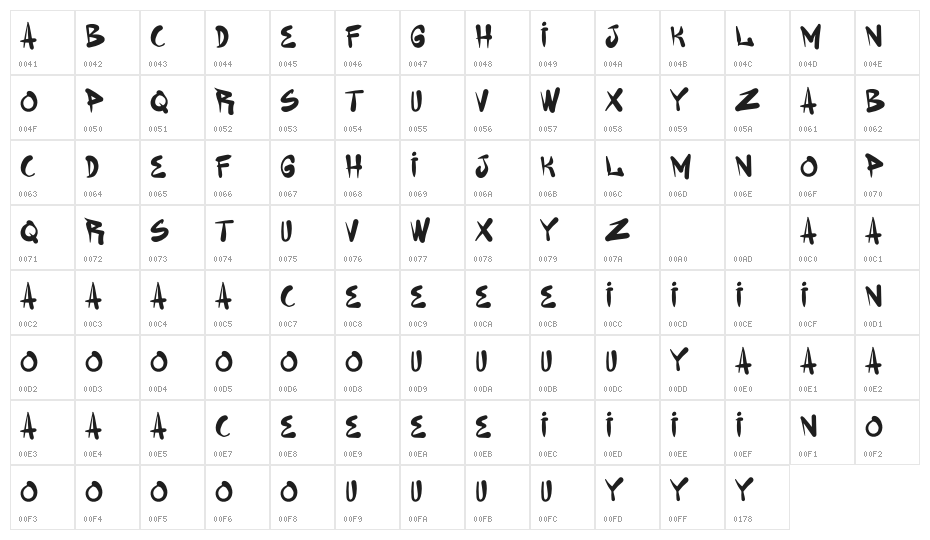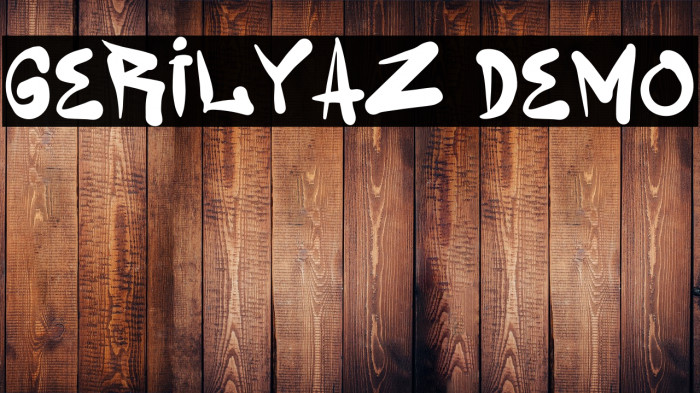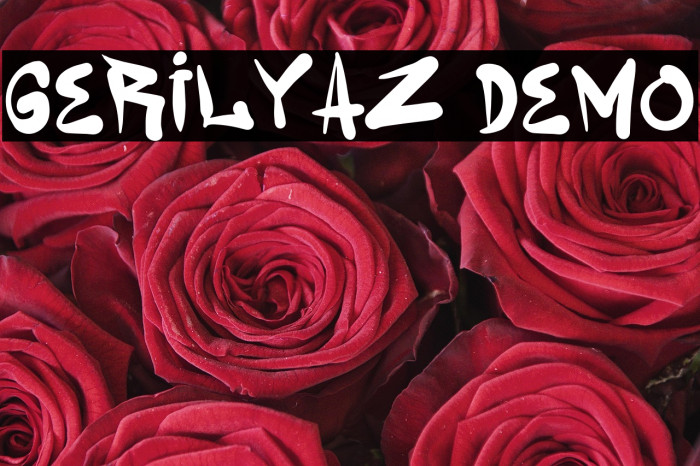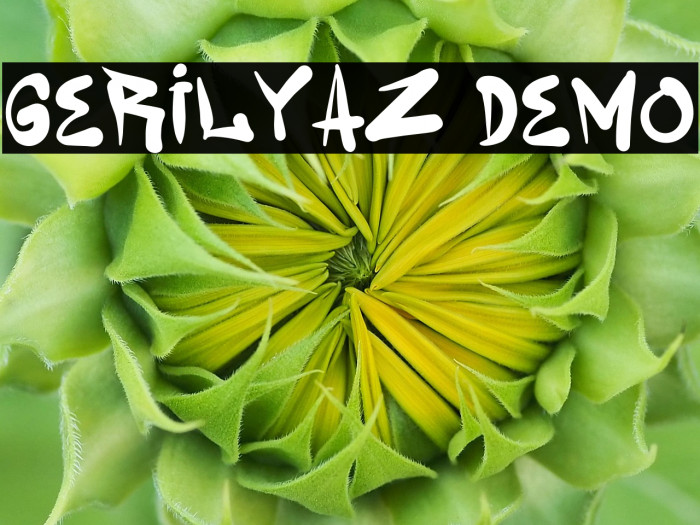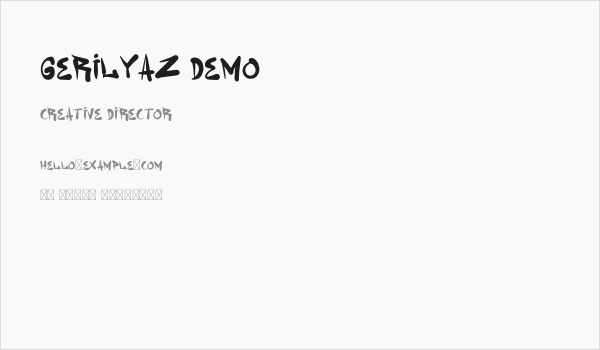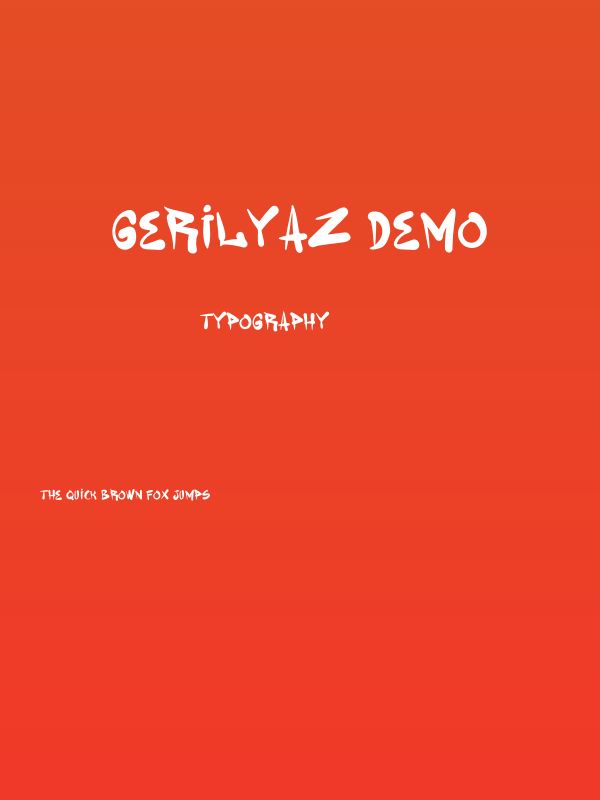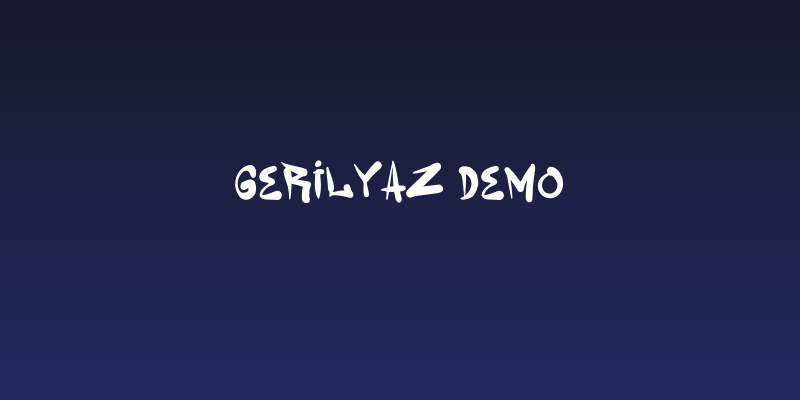
Gerilyaz Demo Font
Gerilyaz Demo Description
This font exhibits a bold and dynamic handwritten style, characterized by its irregular and playful letterforms. The strokes are thick and expressive, giving a sense of movement and energy. The uppercase letters are particularly striking, with unique variations that add to the font's charm. The lowercase letters maintain the same lively aesthetic, ensuring consistency throughout. The numbers and special characters are equally bold, making them stand out effectively. This font's overall appearance is both artistic and informal, making it suitable for creative and casual applications.